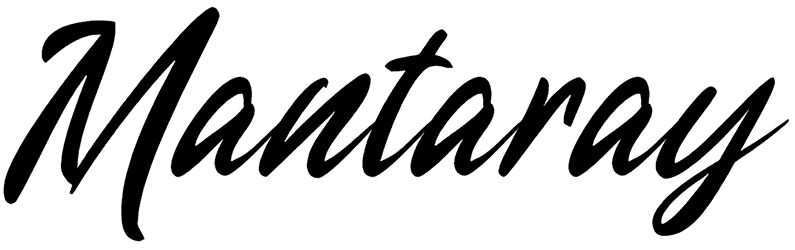
Mantaray Font
Mantaray can instantly make your art projects look professional and impressive. What makes this script font a particular option among its family members is the dry and rough strokes that make it look more serious.
So if you are looking for an authentic style that is relatively easy to read, this handwritten font with your letters can be ideal. By downloading Mantaray, you will have different characters for packaging, tattoos, and t-shirts.